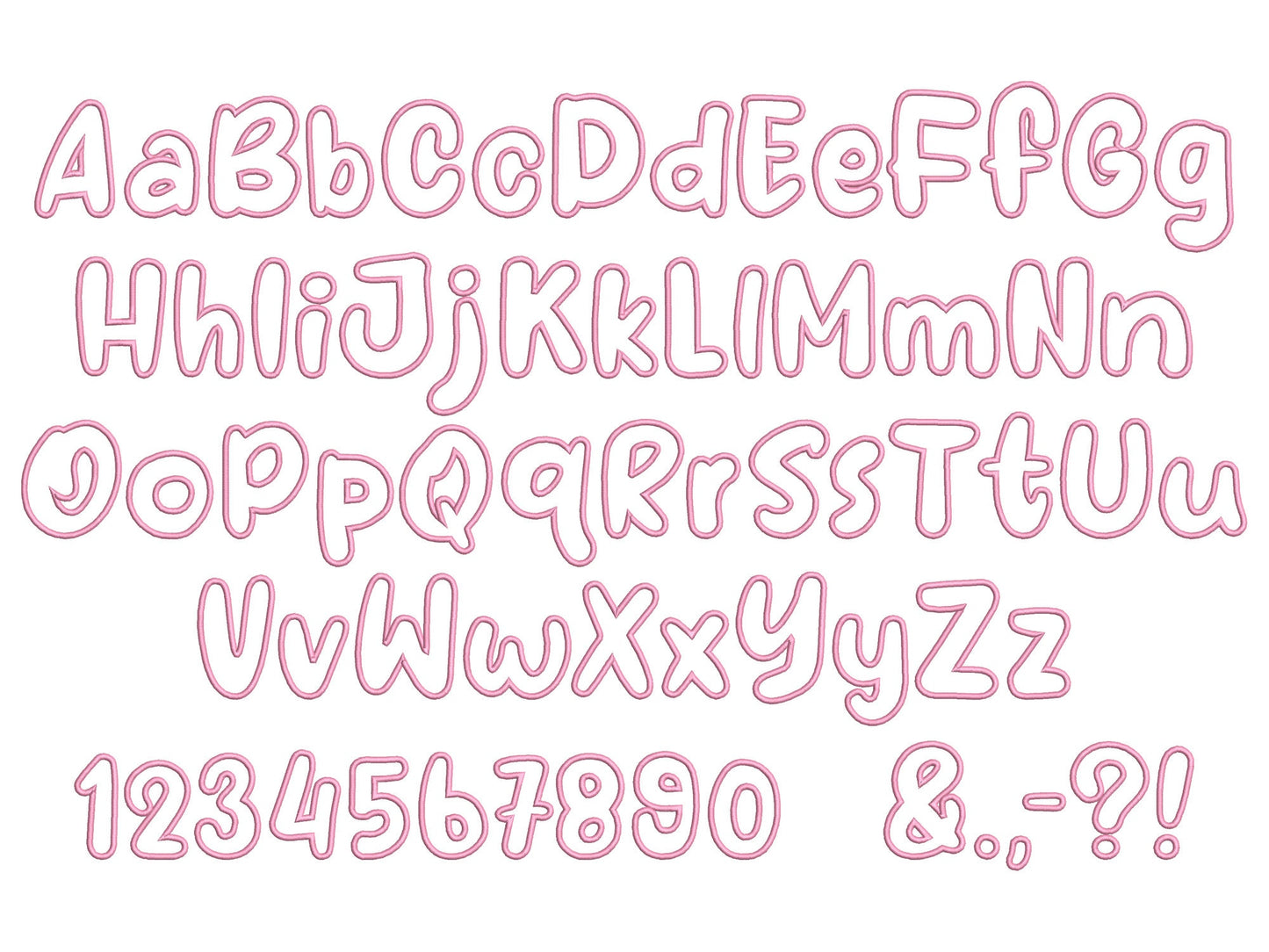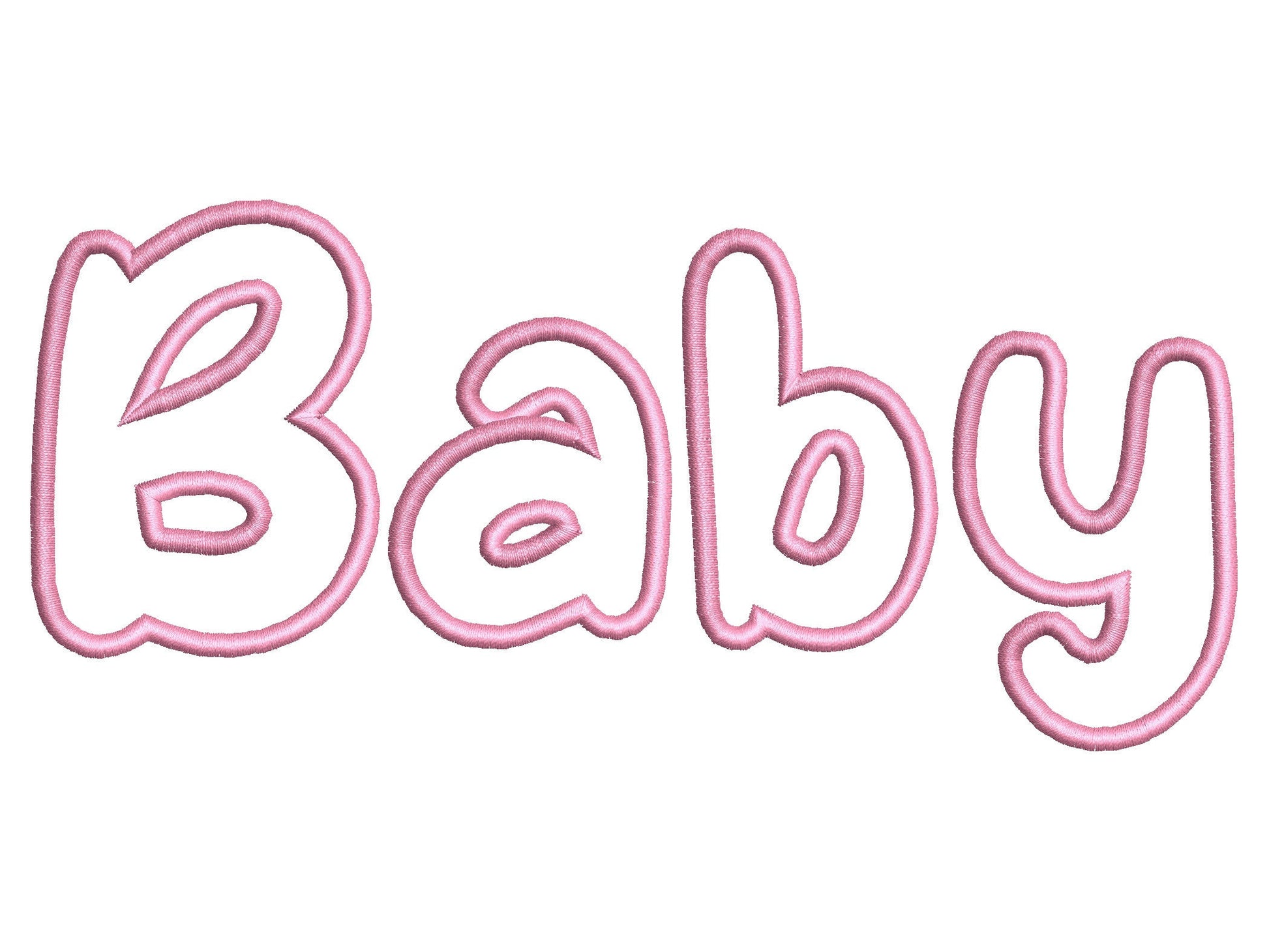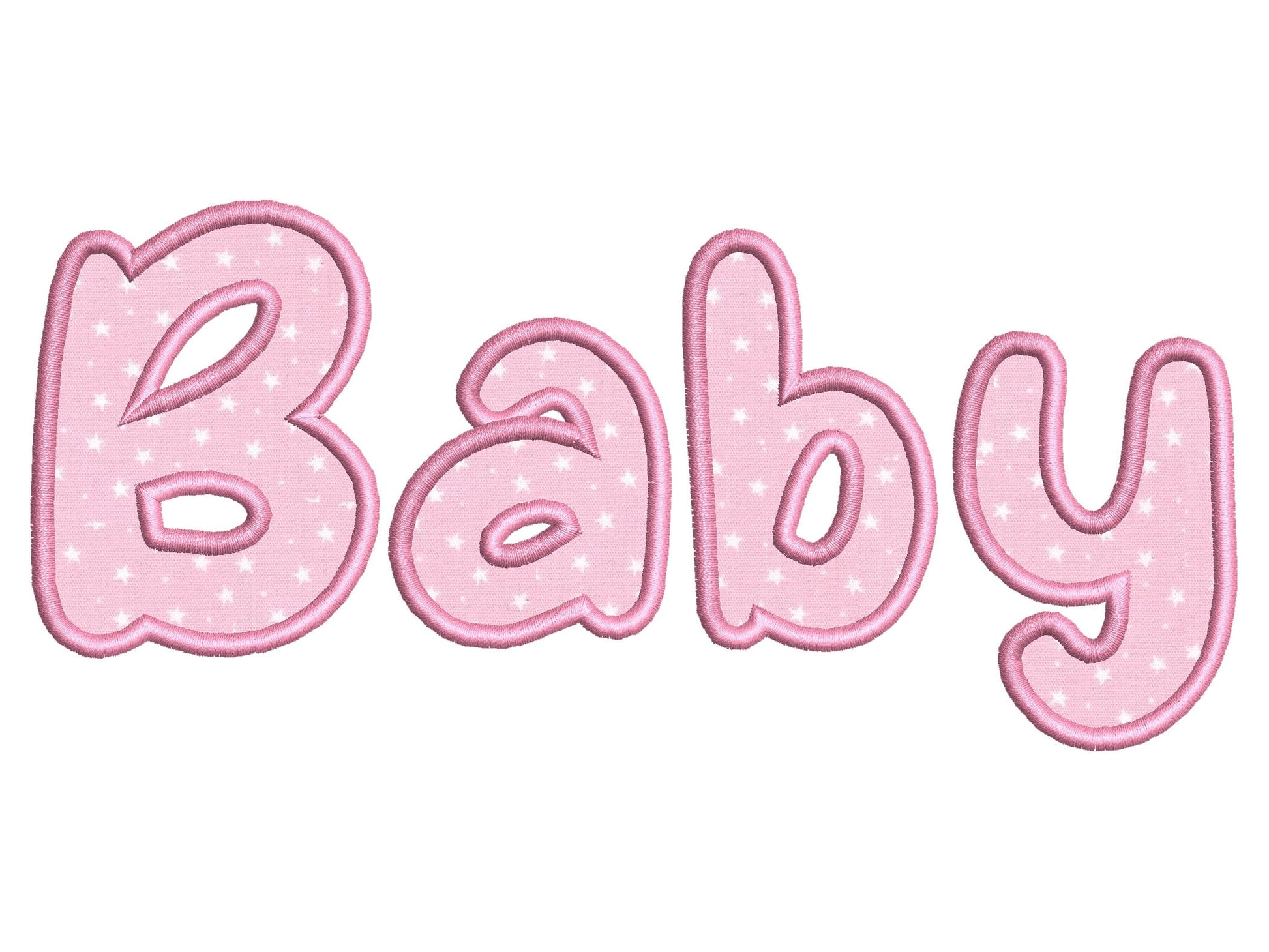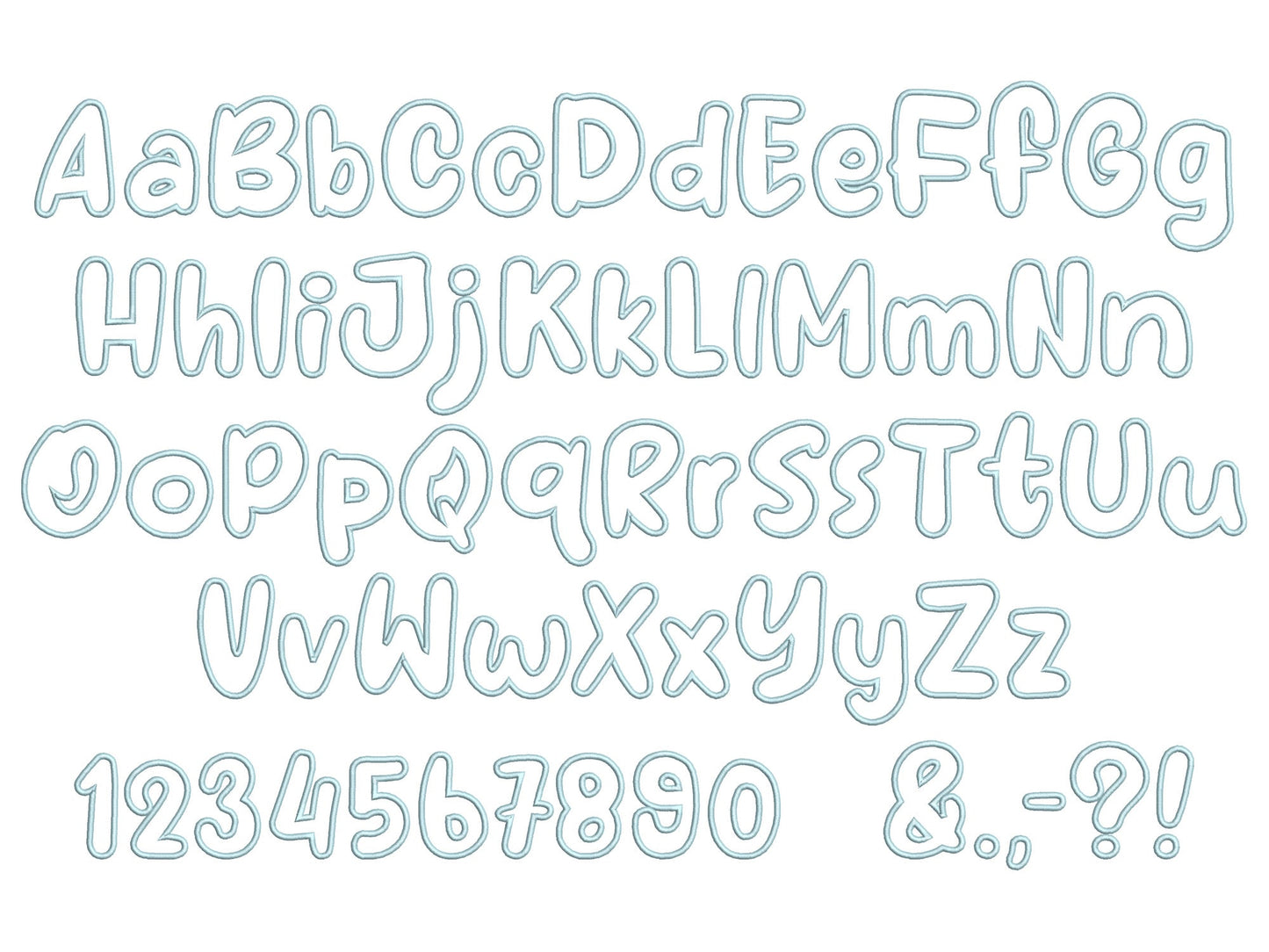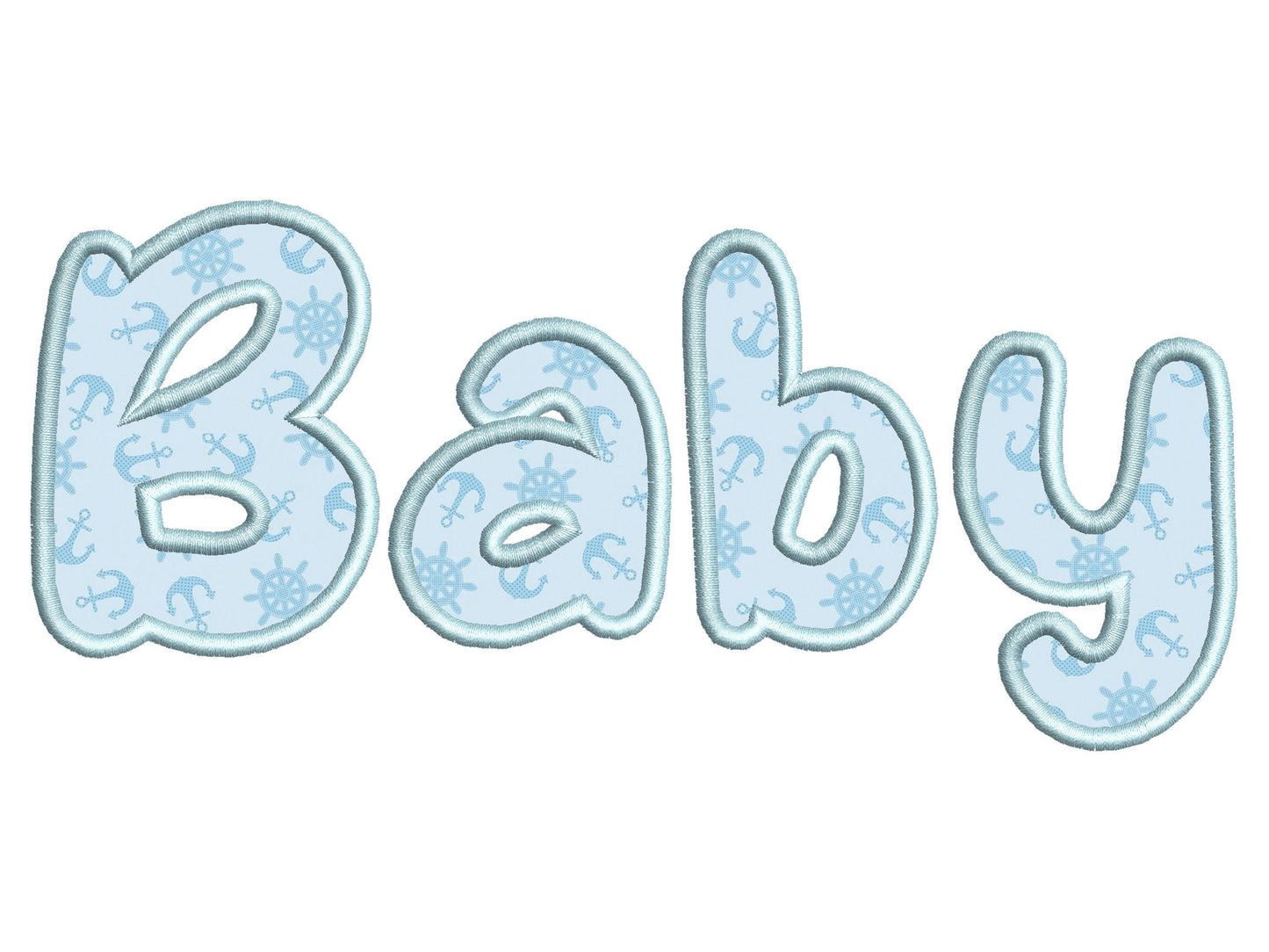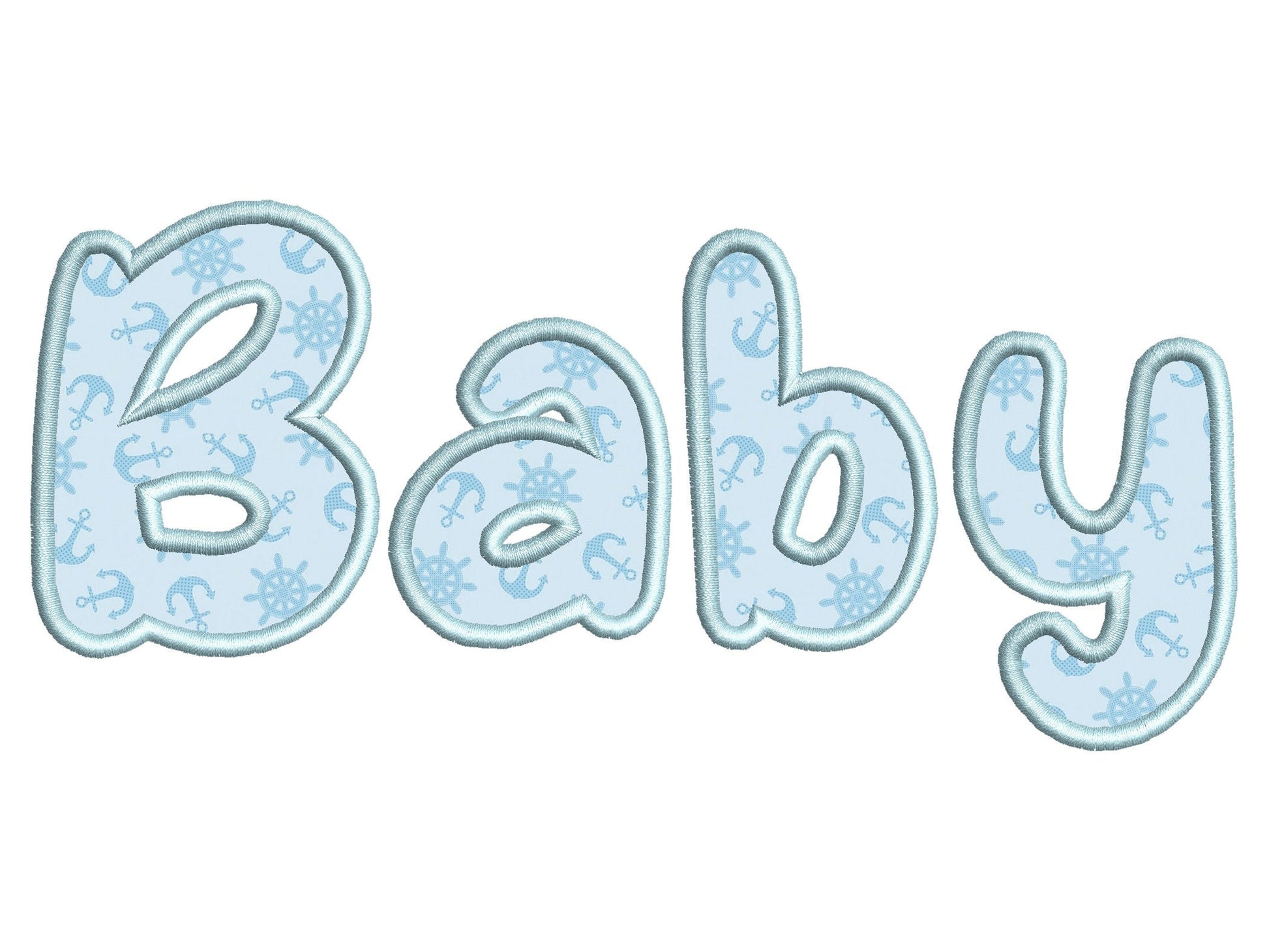
Baby Applique Font
Included: Uppercase A-Z, Lowercase a-z, Numbers 0-9, Punctuation
A cute applique font for babies and kids. Sweet for baby names, bibs, blankets, pillows and nursery decor.
Uppercase and lowercase letters, numbers 0 to 9 and punctuation. Five sizes: 1.4, 1.7, 2, 2.5 and 3 inches. Applique letters with a satin edge.
• Baby applique font
• Uppercase, lowercase, numbers 0 to 9, punctuation